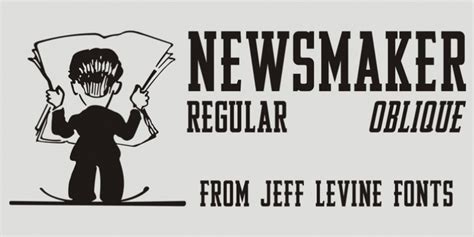
What is Newsmaker JNL Font? A Deep Dive
Alright, let’s talk about what makes Newsmaker JNL font so special. Created by the talented Jeff Levine, this font is a digital revival of the classic headline fonts from the early 20th century. Think old-school newspapers, bold signage, and those iconic movie posters – that’s the vibe we’re talking about! The font is characterized by its strong, condensed letterforms, making it ideal for grabbing attention and conveying a sense of nostalgia. It’s like a time machine for your designs, bringing a touch of vintage flair to any project. Whether you’re working on a personal project or a commercial one, this font can truly elevate your visual communication.
Characteristics and Features
Newsmaker JNL isn’t just a pretty face; it’s also incredibly versatile. The font’s design ensures excellent readability, even at larger sizes. Its unique style works brilliantly in display settings, where you need to make a statement. Furthermore, the designer, Jeff Levine, has ensured the font is clean and professional to prevent your text from looking cluttered and difficult to understand. It has a high x-height, making it easy to read. This is crucial for headlines, titles, and any text that needs to stand out. The bold strokes and condensed style make it a go-to choice if you want to leave a lasting impact on your audience. The font comes in various weights and styles, giving you plenty of options to customize your designs. The font includes a full set of uppercase characters, numerals, and punctuation marks, so it’s a very complete package. The font also includes a range of special characters and glyphs that you can use to add some extra details.
Newsmaker JNL Font Uses
The applications of the Newsmaker JNL font are as wide as your imagination. It’s excellent for creating vintage-style logos that evoke a sense of history and authenticity. It is brilliant for retro posters and flyers, where you want to capture the attention of your audience with a bold, eye-catching design. It’s also great for social media graphics, where you need a font that stands out in a crowded feed. The font is suitable for website headers and titles, helping you create a strong first impression. You can also use this font for product packaging, giving your brand a unique and memorable identity. In addition, Newsmaker JNL works well in print media, like magazine covers and newspaper headlines, where its bold style ensures readability. The versatility of this font makes it a valuable asset for designers across all industries, providing a unique aesthetic that helps projects stand out.